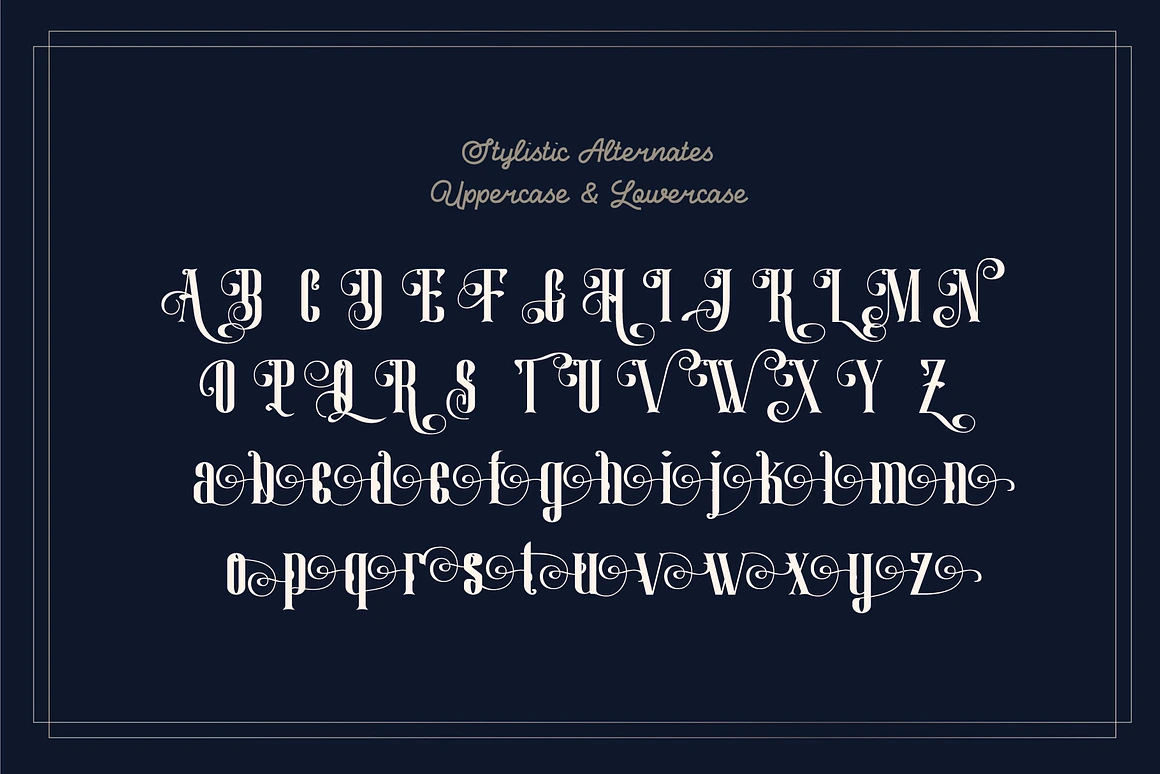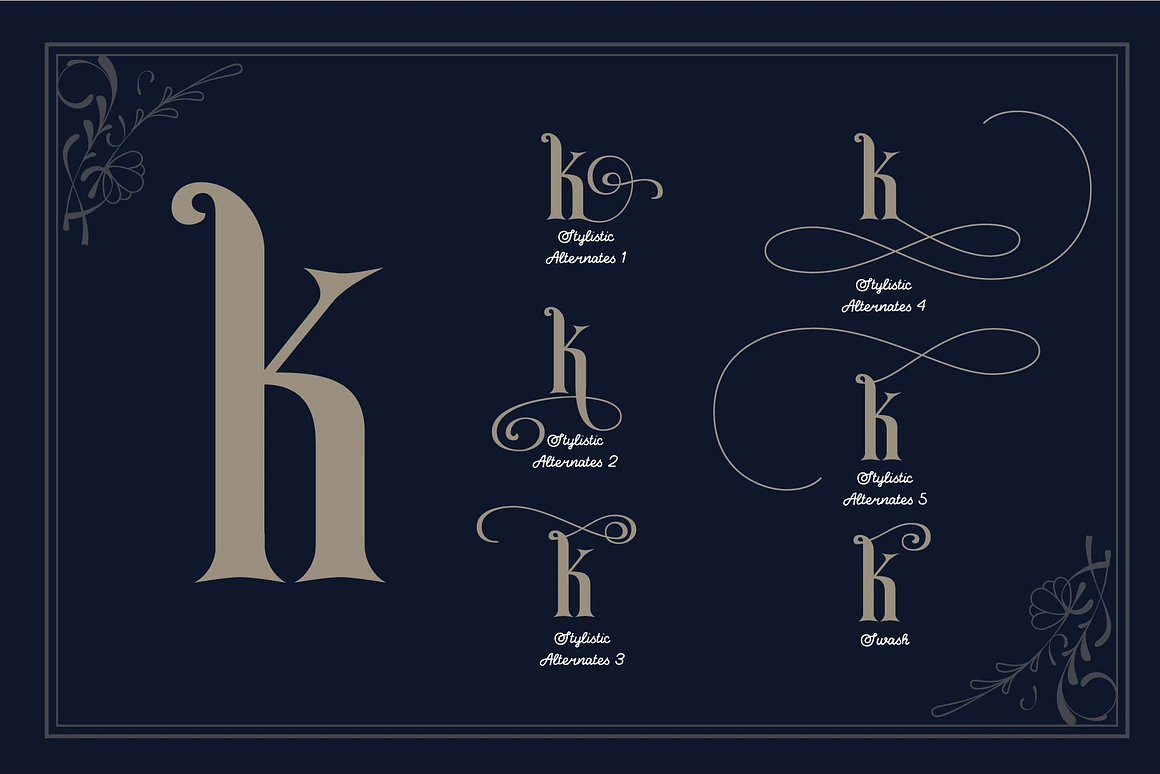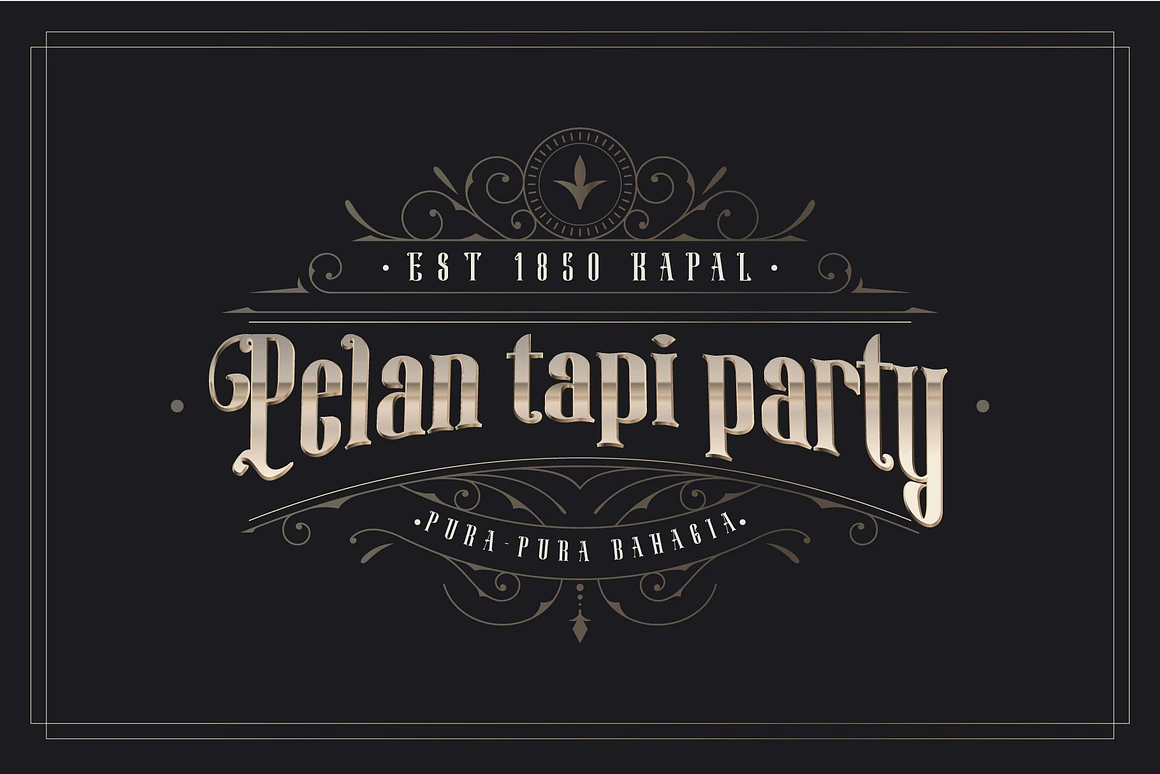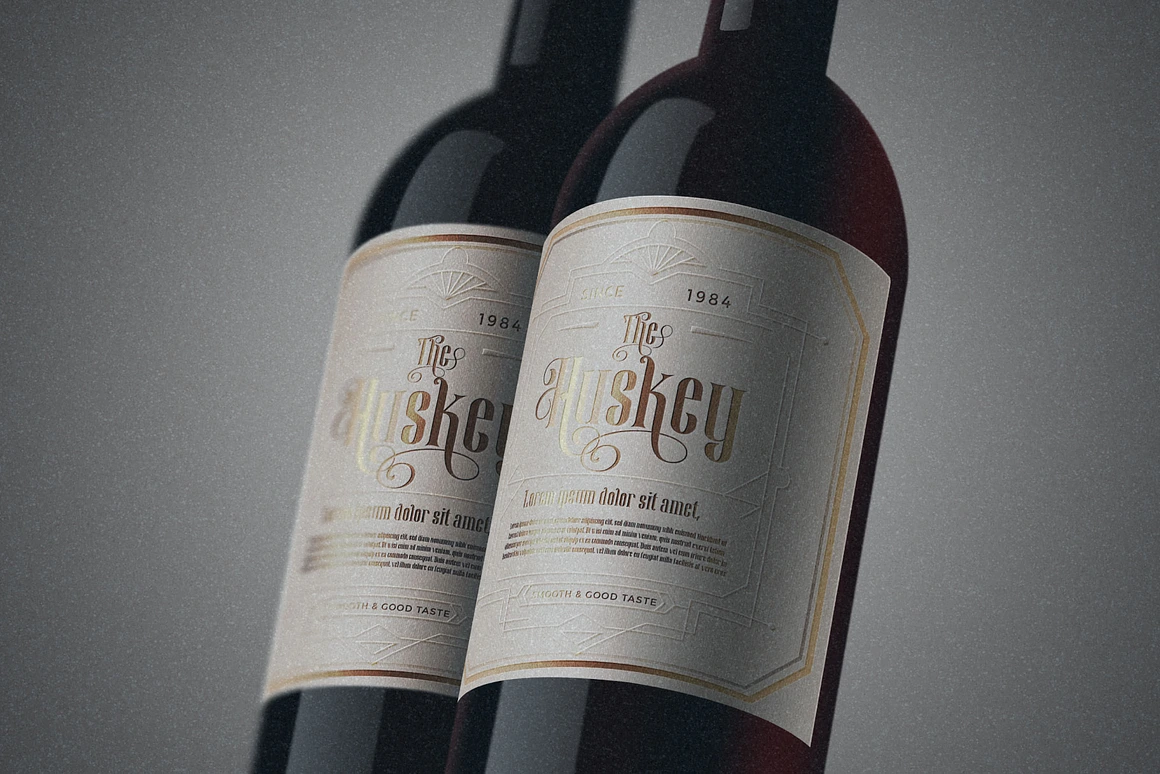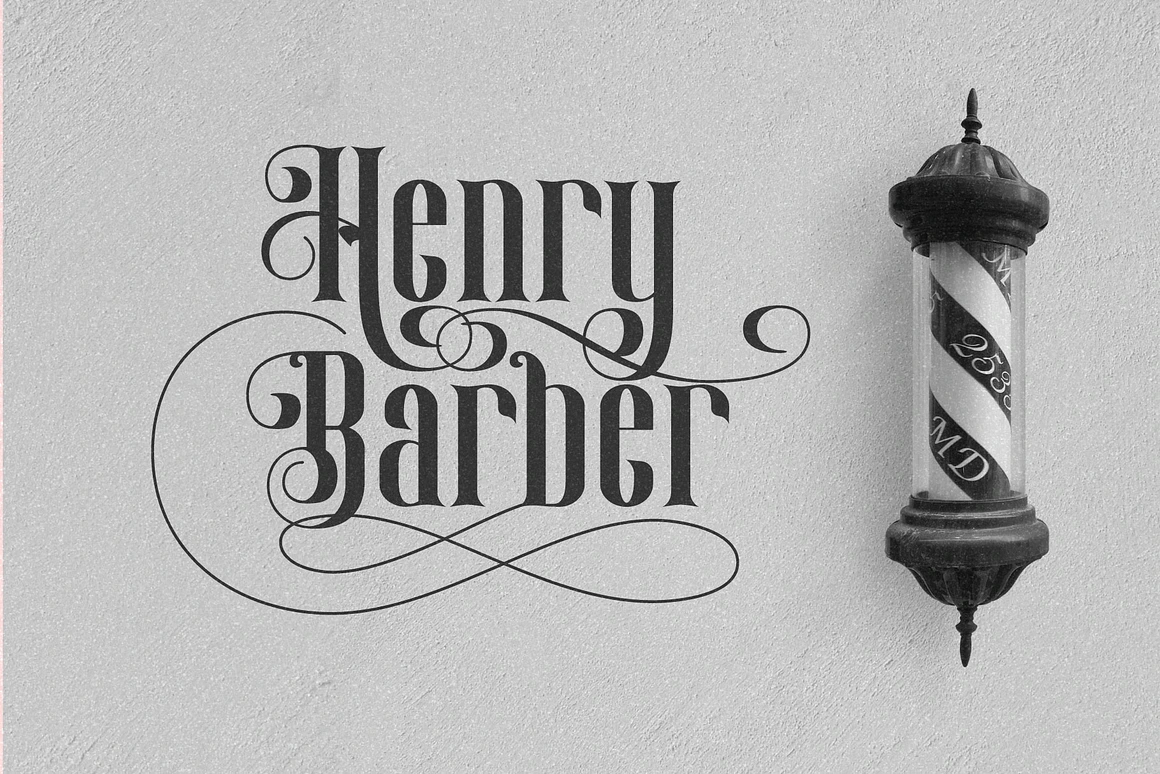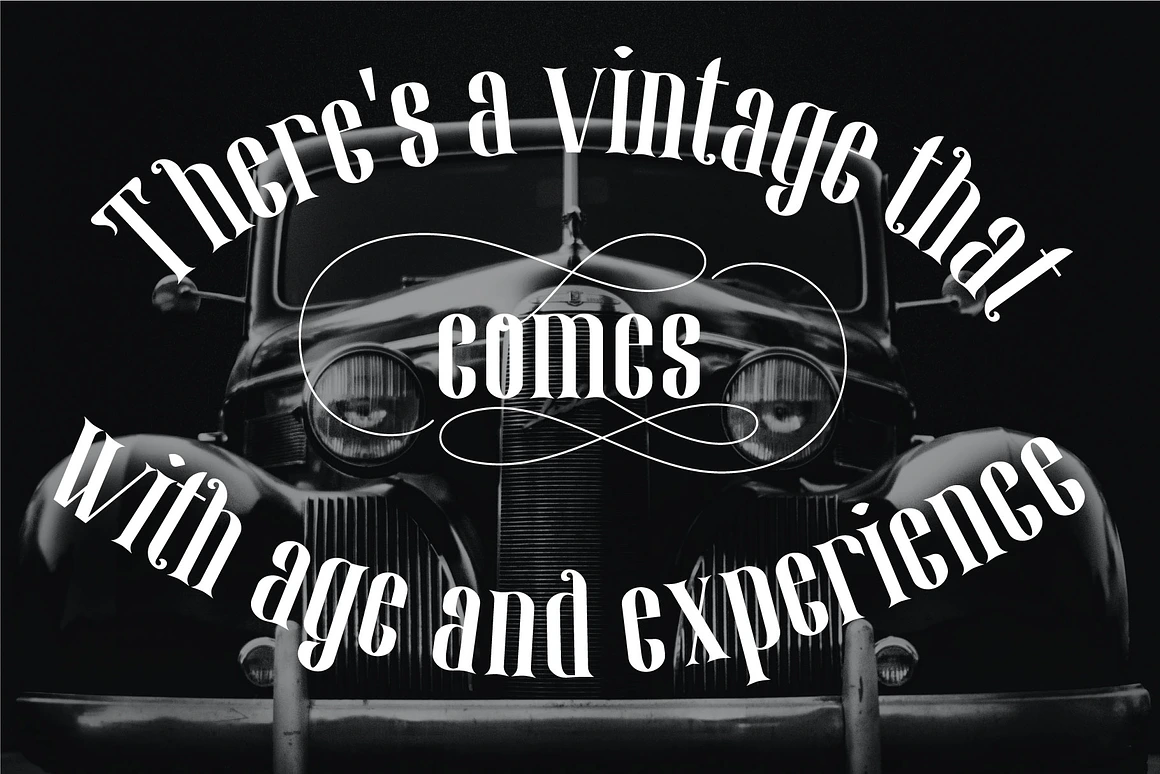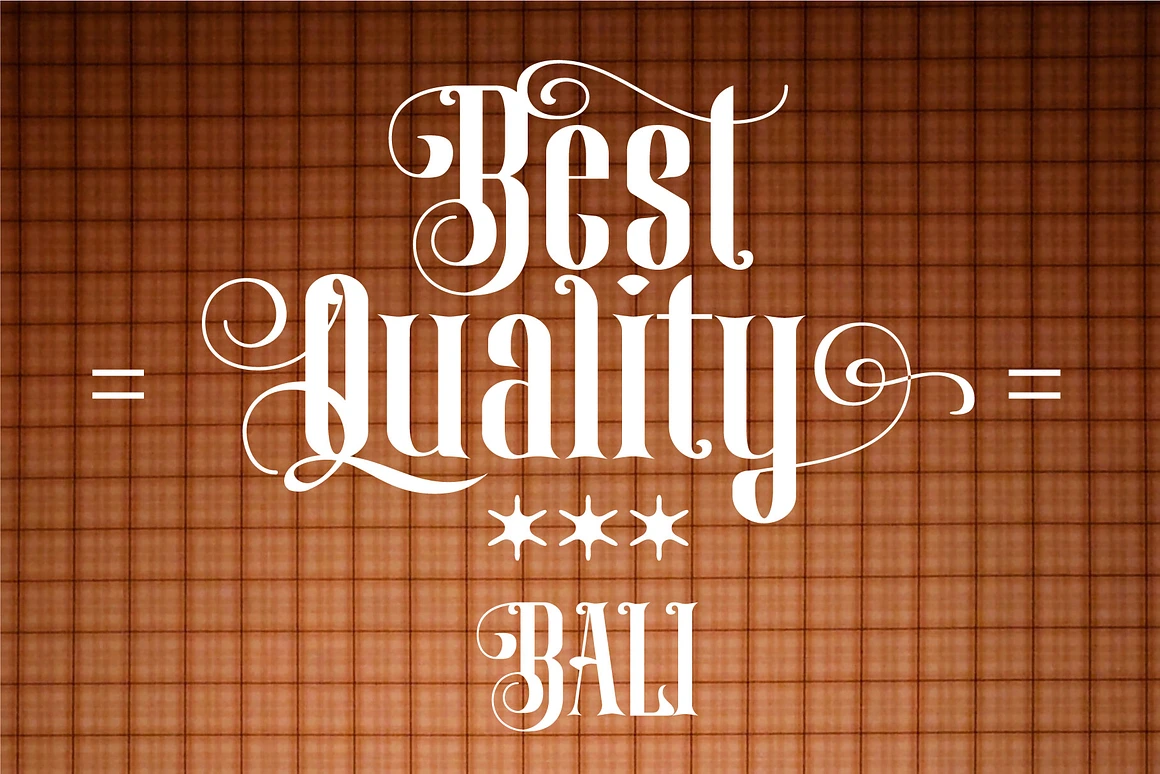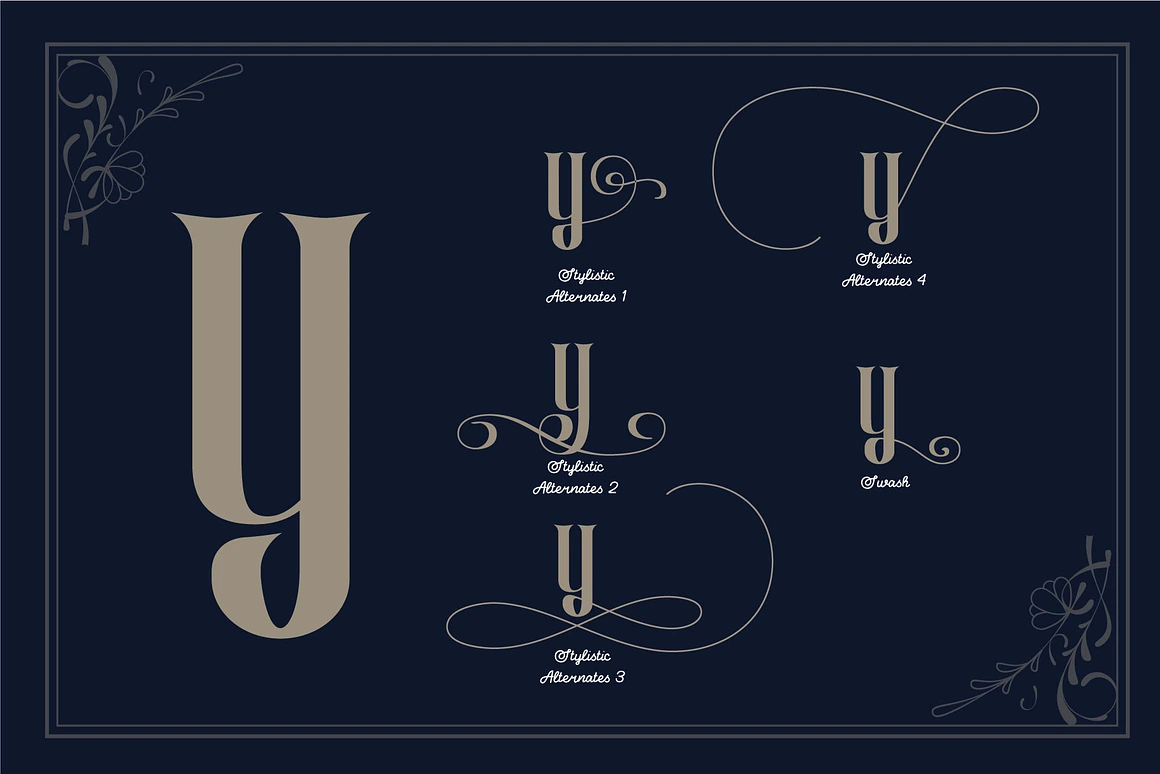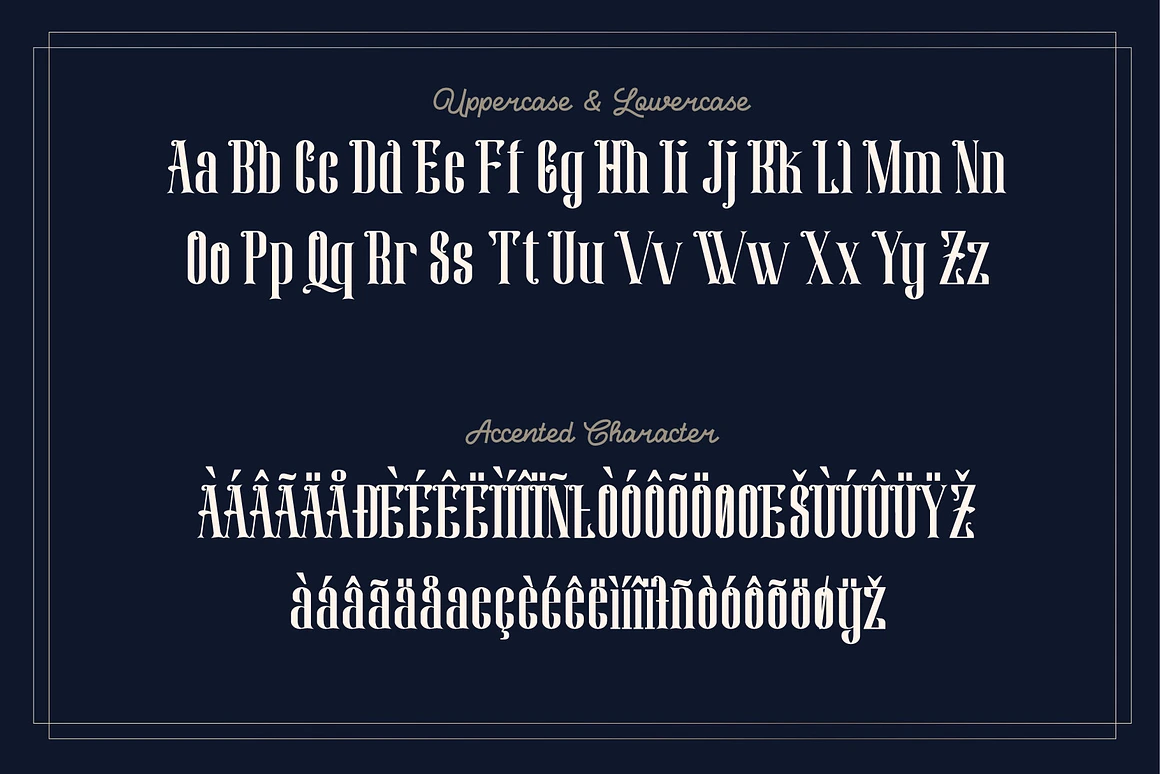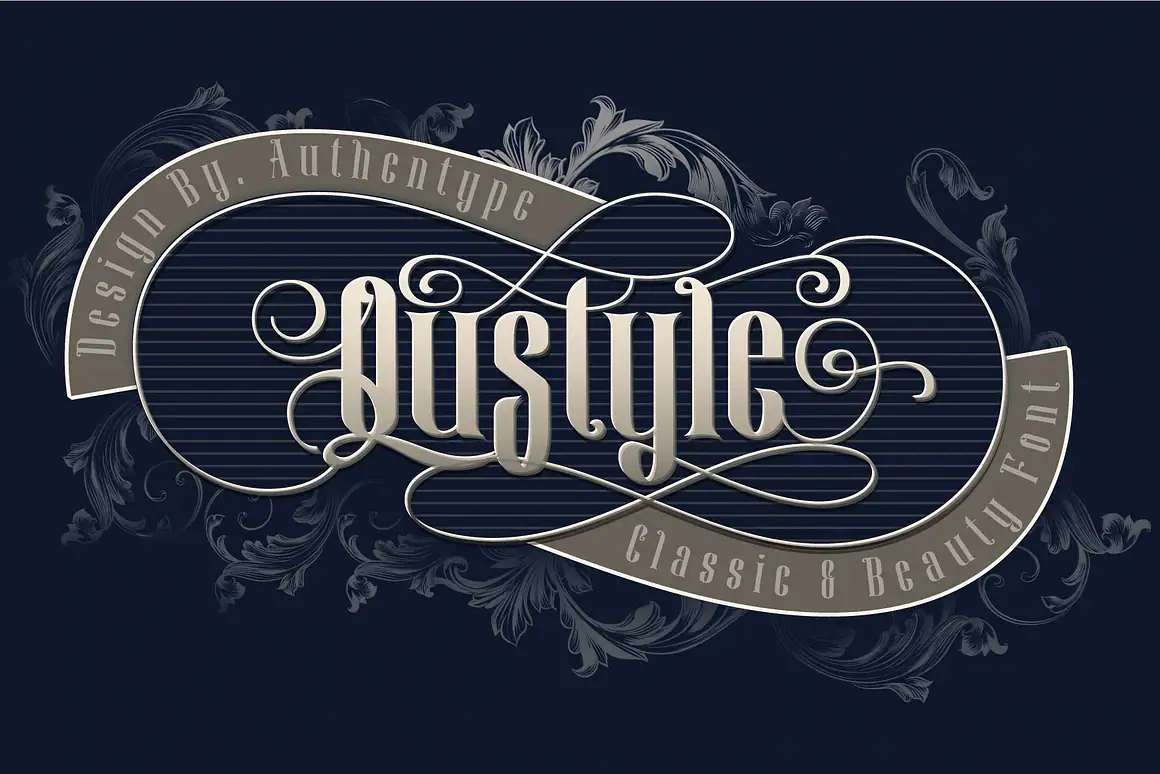
Qustyle – Elegant Blackletter Font with Ornamental Swashes
Qustyle
Qustyle Elegant Blackletter Font – A Blend of Gothic Charm and Modern Elegance
Qustyle by Authentype Studio is an elegant blackletter font with ornamental swashes, perfect for luxury branding, wedding invitations, and vintage-style designs.
Why Choose Qustyle Elegant Blackletter?
With refined curves, stylish ligatures, and multilingual support, this font delivers bold personality and timeless sophistication.
Qustyle blackletter Features
- Full uppercase & lowercase blackletter glyphs
- Swashes and ligatures for added elegance
- Lowercase ending swashes for decorative flair
- Multilingual support (ä ö ü Ä Ö Ü ß ¿ ¡ and more)
Best For:
- Premium logo design
- Elegant wedding stationery
- Vintage product packaging
- Gothic-inspired branding projects
With Qustyle, every word becomes an ornamental masterpiece.